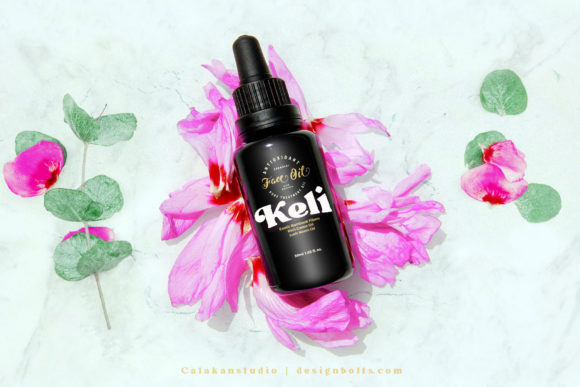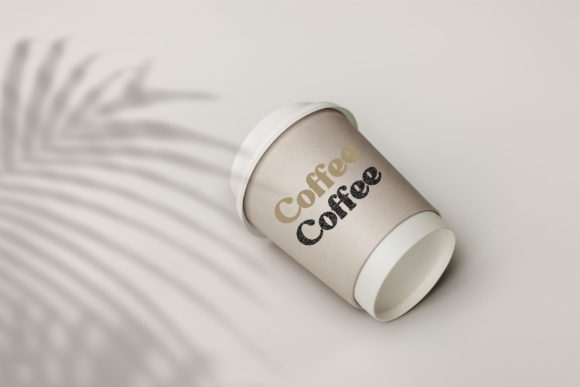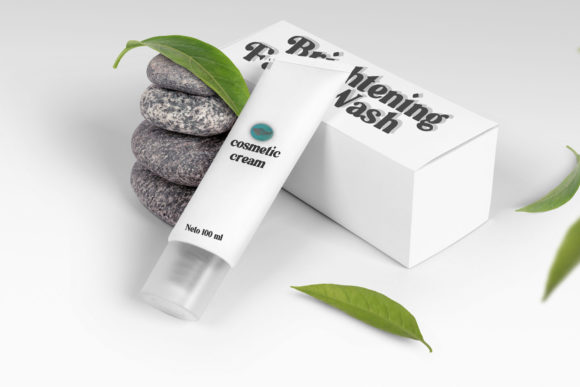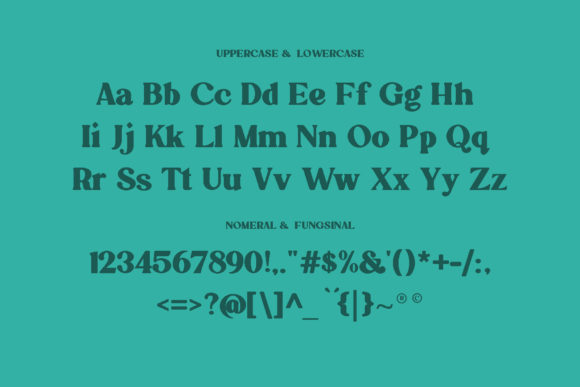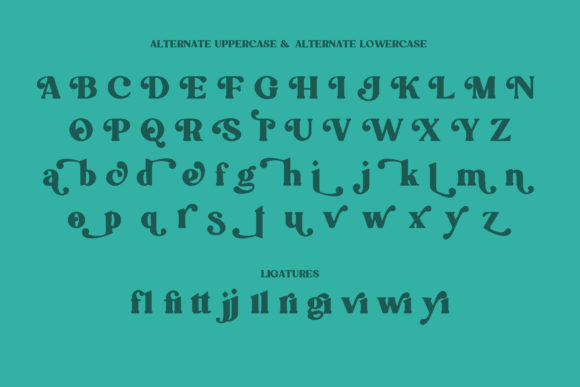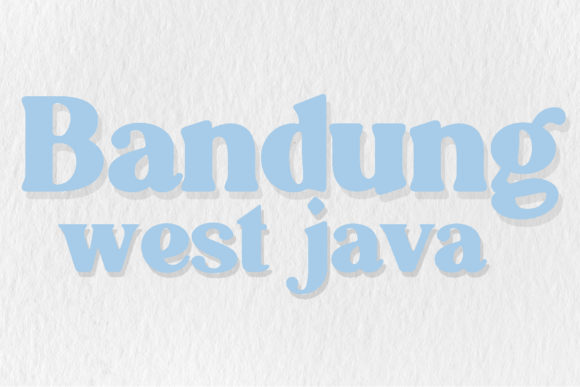
Introducing Elephant Witty Font: The Bold, Trendy, and Chic Serif Choice
Are you tired of using the same old fonts in your designs? Look no further than Elephant Witty Font, a bold, trendy, and chic serif font that’s sure to make your creations stand out. With its uniquely shaped letters and imposing presence, Elephant Witty is the perfect choice for designers and crafters looking to add a distinct touch to their work.
What Sets Elephant Witty Apart
Elephant Witty Font is a cut above the rest when it comes to serif fonts. Its bold and trendy design makes it perfect for headlines, titles, and other applications where you want to make a statement. The font’s chic and sophisticated feel also makes it suitable for use in branding, packaging, and advertising materials.
One of the key features that sets Elephant Witty apart is its uniquely shaped letters. Each letter has been carefully crafted to provide a distinctive look that’s both elegant and eye-catching. Whether you’re using the font for digital or print applications, Elephant Witty is sure to grab attention and leave a lasting impression.
Elephant Witty Font is an incredibly versatile font that can be used in a wide range of creations. From fashion and beauty branding to packaging and advertising, this font is sure to complement any design. Its imposing presence also makes it perfect for use in titles, headings, and other applications where you want to make a bold statement.
Whether you’re a designer, crafter, or DIY enthusiast, Elephant Witty Font is a great choice for any project that requires a distinct touch. The font’s bold and trendy design makes it perfect for:
- Fashion and beauty branding
- Packaging and labeling
- Digital and print media
Why Choose Elephant Witty Font?
There are many reasons why Elephant Witty Font stands out from the crowd. Here are just a few:
- Unique design: Elephant Witty’s uniquely shaped letters provide a distinctive look that’s both elegant and eye-catching.
- Bold and trendy: This font’s bold and trendy design makes it perfect for headlines, titles, and other applications where you want to make a statement.
- Versatile: Elephant Witty Font can be used in a wide range of creations, from fashion and beauty branding to packaging and advertising.
- Easy to read: Despite its bold design, Elephant Witty Font is easy to read, making it perfect for use in digital and print applications.
How to Use Elephant Witty Font
Here are a few tips for getting the most out of Elephant Witty Font:
- Use it sparingly: Elephant Witty Font is a bold font, so use it sparingly to avoid overwhelming your design.
- Pair it with a sans-serif font: Pairing Elephant Witty Font with a sans-serif font can create a nice contrast and add visual interest to your design.
- Experiment with different colors: Elephant Witty Font looks great in a variety of colors, so don’t be afraid to experiment and find the perfect hue for your design.
Elephant Witty Font is a bold, trendy, and chic serif font that’s perfect for designers and crafters looking to add a distinct touch to their work. With its uniquely shaped letters and imposing presence, this font is sure to grab attention and leave a lasting impression. Whether you’re using it for fashion and beauty branding, packaging and advertising, or digital and print media, Elephant Witty Font is a great choice for any project that requires a bold and stylish font.